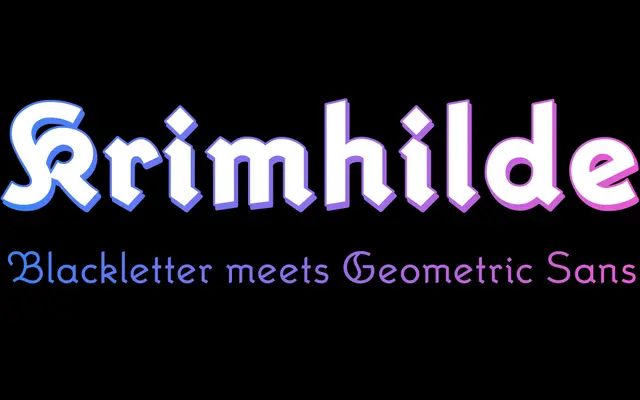
Krimhilde
A 1933 geometric blackletter revival by Albert Auspurg, reissued by FDI Type with alternate legibility variants and chromatic display styles.
Originally released by Ludwig & Mayer in 1933, Krimhilde sits at the intersection of German blackletter tradition and the geometric sans-serif sensibility of New Typography. FDI Type's 2018 revival offers two versions: Version A preserves the original letterforms with a full Latin 1 character set, while Version B substitutes alternative shapes to ease reading for those unfamiliar with blackletter conventions. Optional outline, shadow and fill styles allow chromatic layering for display and editorial work.
Krimhilde fuses German blackletter letterforms with geometric sans-serif influences from the 1920s New Typography movement, placing it firmly in the blackletter category with an unusual geometric hybrid character.